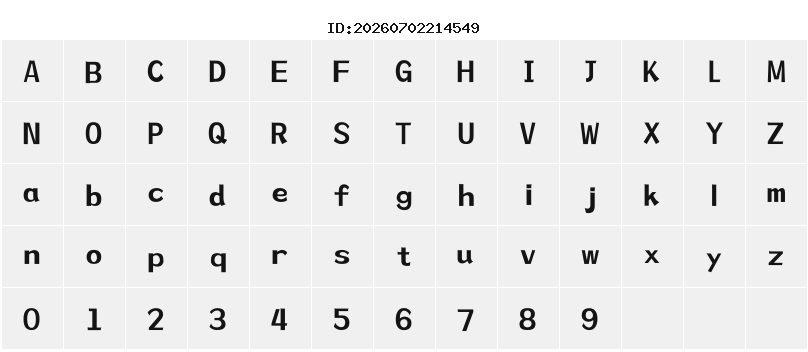
036-上首金牛体 Preview
• Font Name: 036-上首金牛体
• Font ID: 036-SSJinNiuTi:Version 6.00
• Full Font Name: 036-上首金牛体
• Version: Version 6.00 May 13, 2021
• PostScript Name: 036-SSJinNiuTi
• Character Count: 7569
• Manufacturer: 上首造字
About 036-上首金牛体.ttf
036-上首金牛体.ttf is a modern, elegant sans-serif font designed for ultimate readability and visual harmony. Perfect for branding, headlines, web design, and print materials.